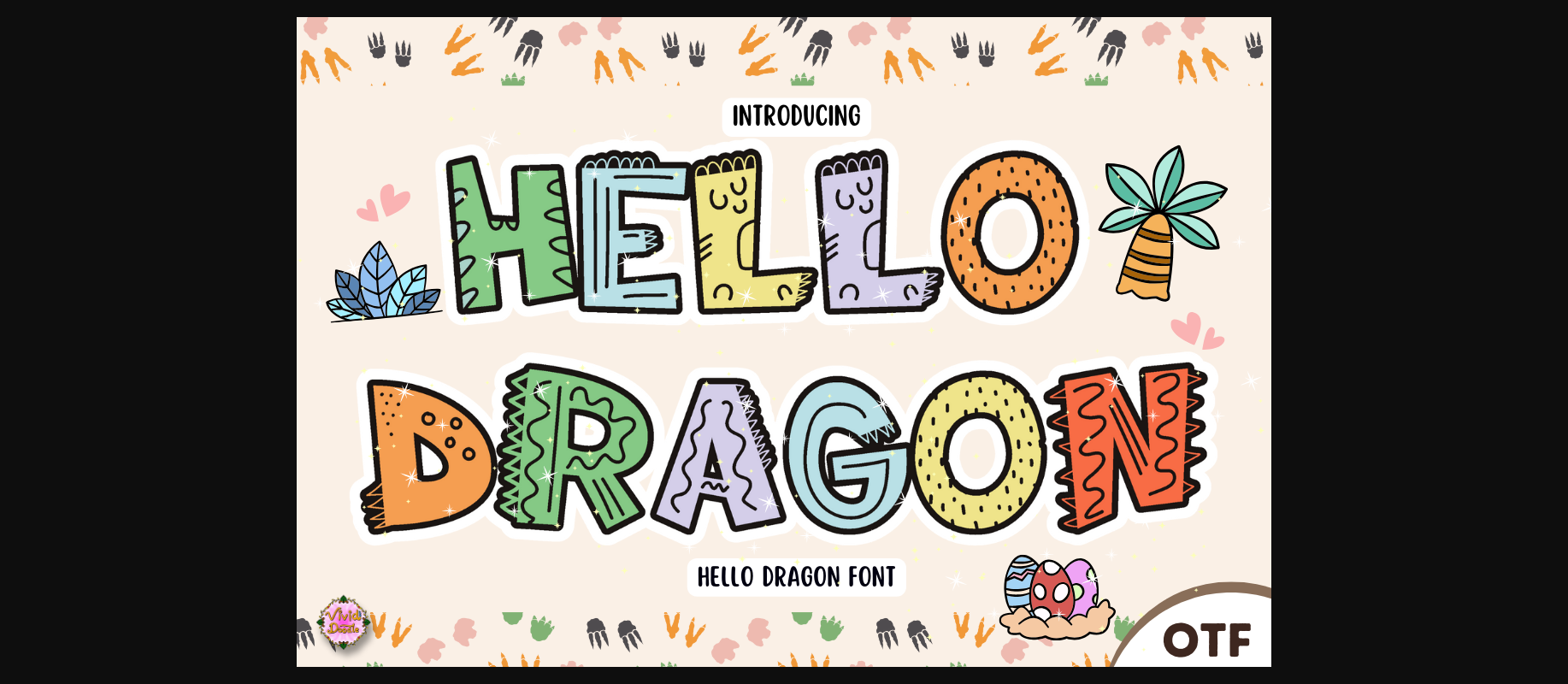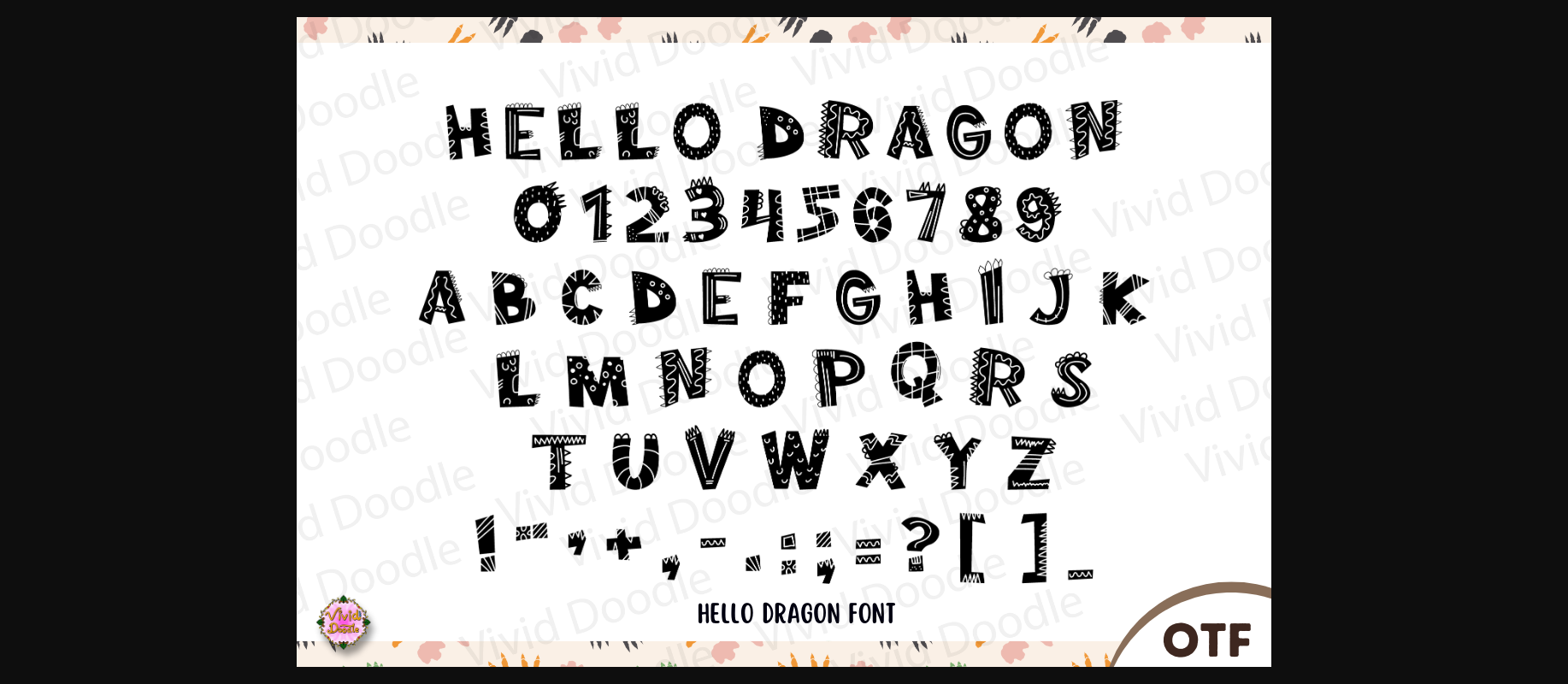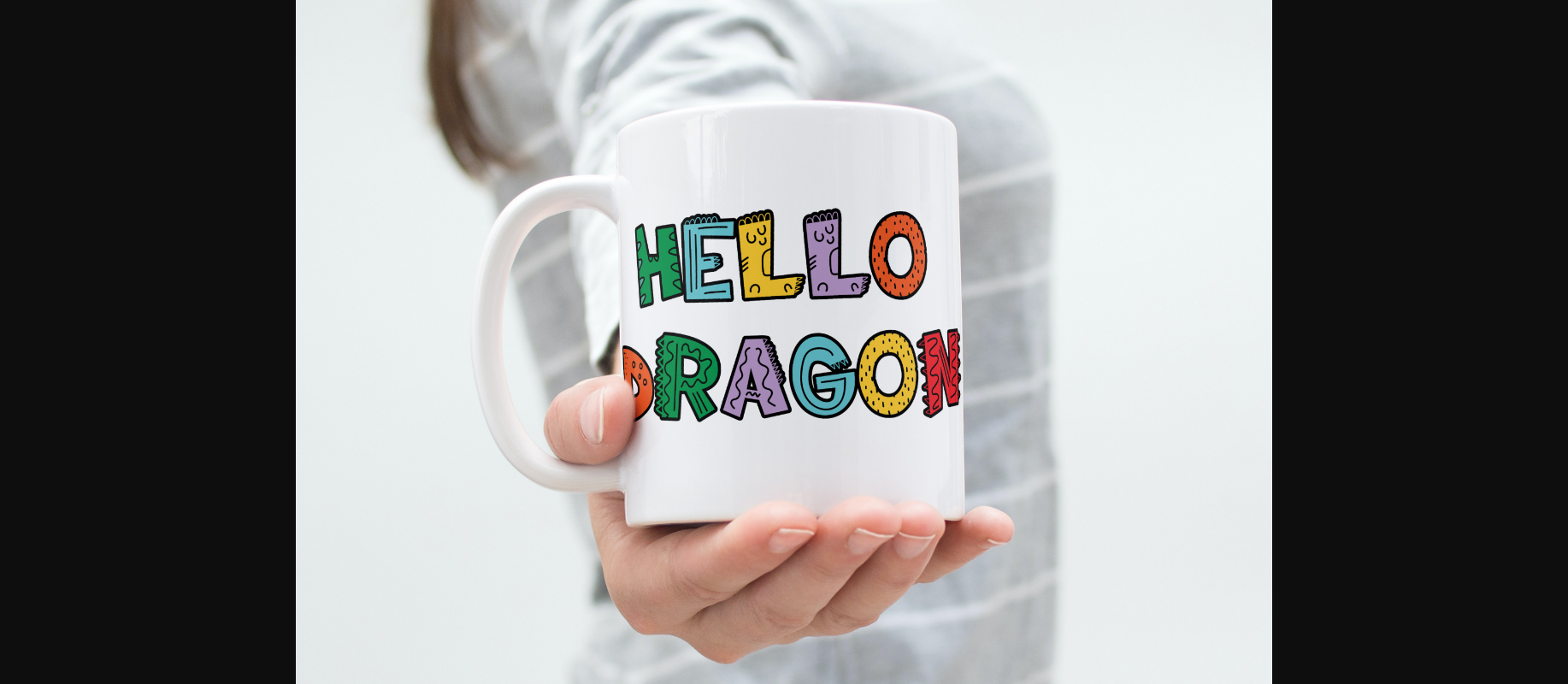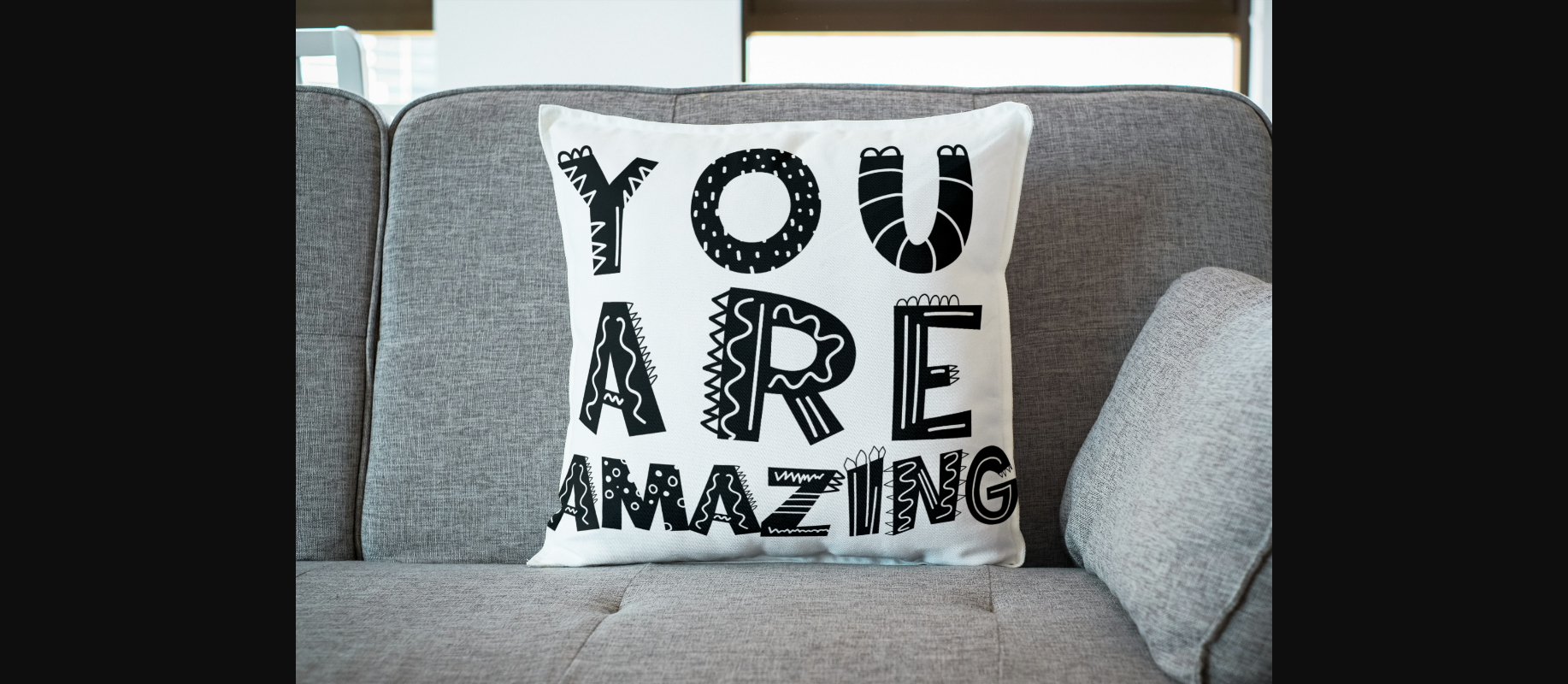
Hello Dragon Font
About Hello Dragon Font
Introducing Hello Dragon Font—a whimsical and versatile typeface designed for dragon-themed projects, cartoons, lettering for kids, coloring book designs, and various other imaginative artworks. Each letter is playfully crafted with dragon-inspired elements, capturing the magical and fantastical spirit associated with these mythical creatures. Whether for children’s book covers, cartoon illustrations, or any creative project that involves dragons, this font seamlessly blends a fun aesthetic with a touch of fantasy charm. Transform your creations into a celebration of whimsy, imagination, and the magical world of dragons with this uniquely crafted and versatile typeface!